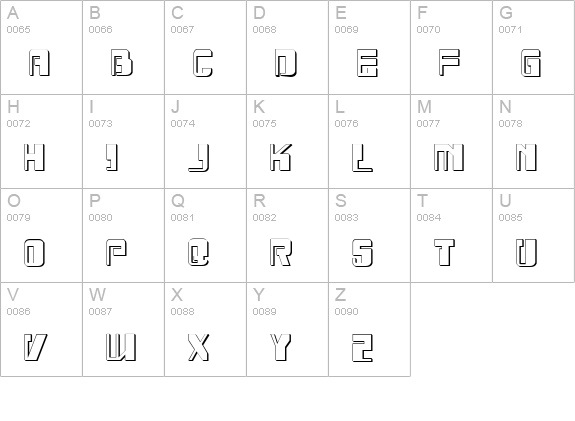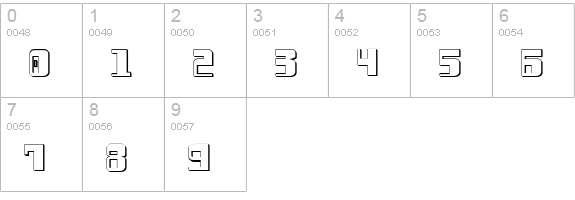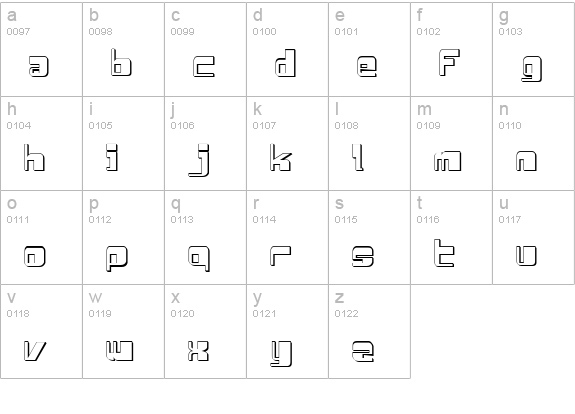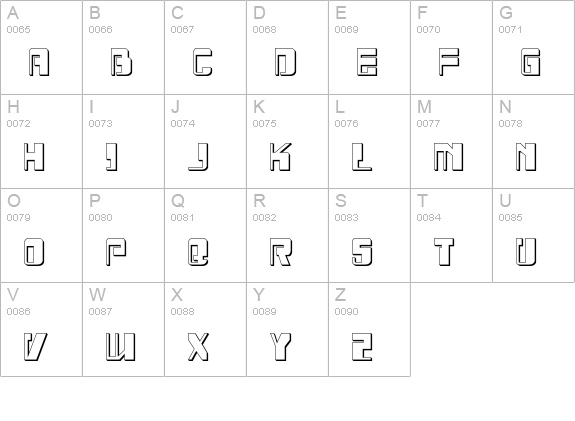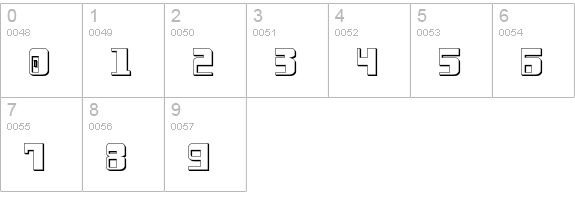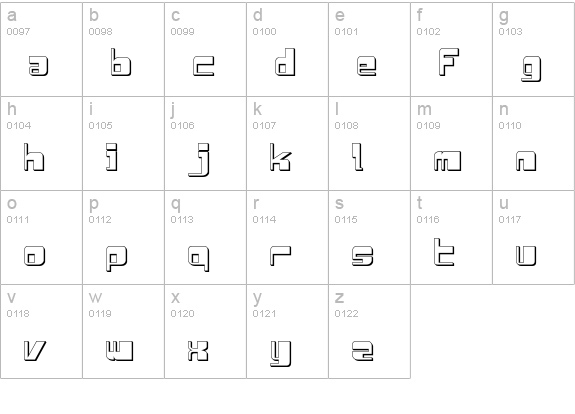
The Drosselmeyer Shadow font is a striking display typeface that exudes elegance and sophistication. With its intricate shadow effect, this font is perfect for creating eye-catching headlines, posters, and invitations. The unique design of Drosselmeyer Shadow adds a touch of mystery and drama to any project, making it a versatile choice for both print and digital designs. Best of all, Drosselmeyer Shadow is available for free download at FontsMarket.com. This means you can easily add this stunning font to your collection without any cost. Whether you're a professional designer or a hobbyist looking to elevate your projects, Drosselmeyer Shadow is a fantastic choice that will make your text stand out in a memorable way. Download it today and unleash your creativity with this captivating typeface.